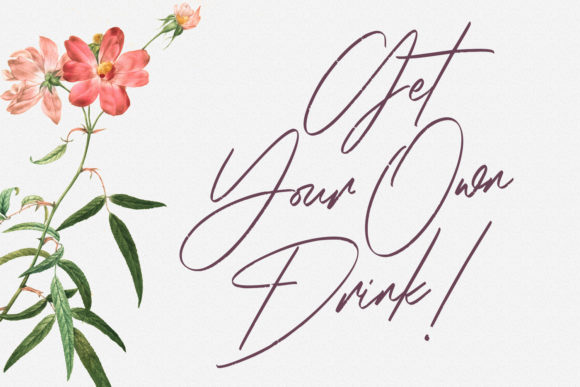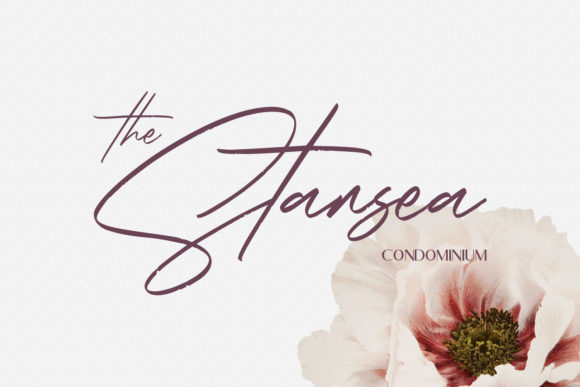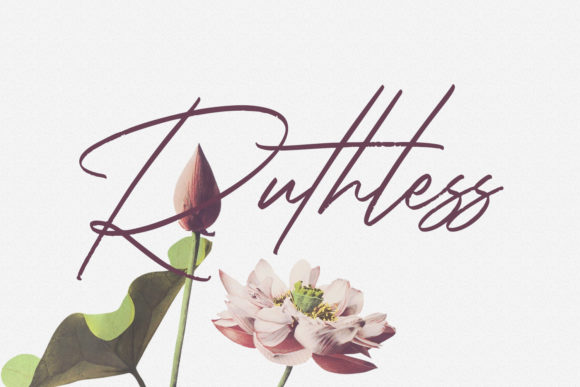
Introduction to Rose Couture Font
Have you ever been working on a creative project, and you just can’t seem to find the perfect font to bring it all together? You’ve scoured the web, tried out countless options, and still, nothing seems quite right. That’s where the Rose Couture Font comes in – a stunning, modern signature script font that’s sure to elevate your design to the next level.
With its unique blend of rough brush contrast strokes and fun characters, the Rose Couture Font is a game-changer for designers. Whether you’re working on a high-end branding project or a personal creative endeavor, this font is sure to add a touch of elegance and sophistication to your design. Plus, with a transparent background, you can easily layer it over other elements to create a truly eye-catching effect.
Key Features of Rose Couture Font
- High-quality, professional design suitable for various creative projects, including fashion and lifestyle branding.
- Designed with a unique, elegant aesthetic, making it perfect for high-end fashion and luxury branding.
Honest Review: Rose Couture Font
As a designer, I’m always on the lookout for high-quality design resources to elevate my creative projects. The Rose Couture Font is one such resource that caught my attention. I decided to put it to the test and see how it performs.
- ✨ Beautiful, elegant design: The font is perfect for creating a luxurious and sophisticated look.
- ✨ High-quality vectors: The font files are well-crafted and scalable, making it ideal for various design applications.
- ⚠️ Limited language support: The font only supports a limited set of languages, which may be a concern for designers working on global projects.
Tips for Getting the Most Out of Rose Couture Font
For the best results, use the Rose Couture Font on a transparent background to give your designs a high-quality, professional look. You can also experiment with different font sizes and styles to add depth and visual interest to your designs.
The Rose Couture Font is perfect for a variety of creative projects, including wedding invitations, fashion designs, and editorial layouts. You can also use it to create eye-catching social media graphics and promotional materials.